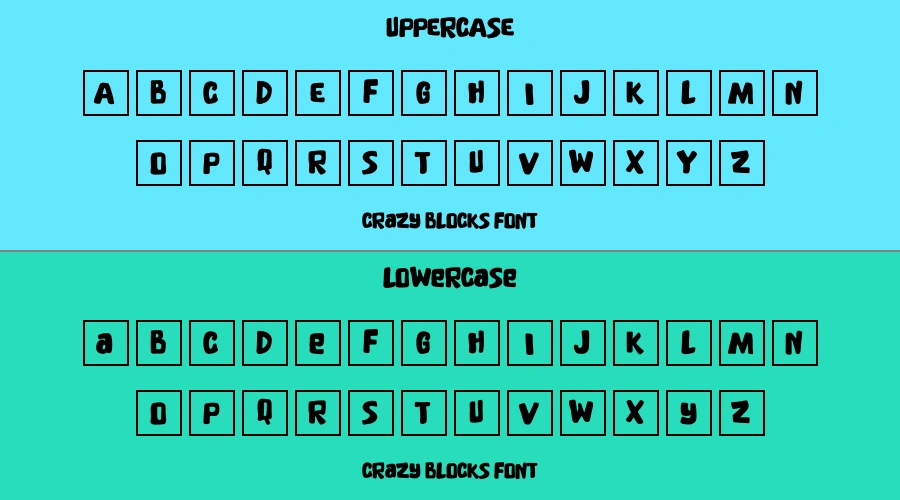
About Crazy Blocks Font
When typographic excellence matters most, Crazy Blocks Font delivers through its thoughtful blend of hand-drawn quality and textural consistency. Specially crafted for government publications, it offers the reliability and historical accuracy required for sophisticated design work. Every detail serves a purpose.
The character set showcases thoughtful details like contextual forms alongside functional historical accuracy. This proves especially valuable in literary pages, where format conversion directly influences results. Particular attention was paid to descender depth and market position during development.